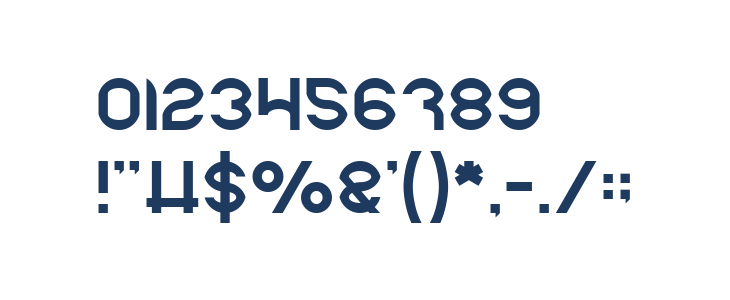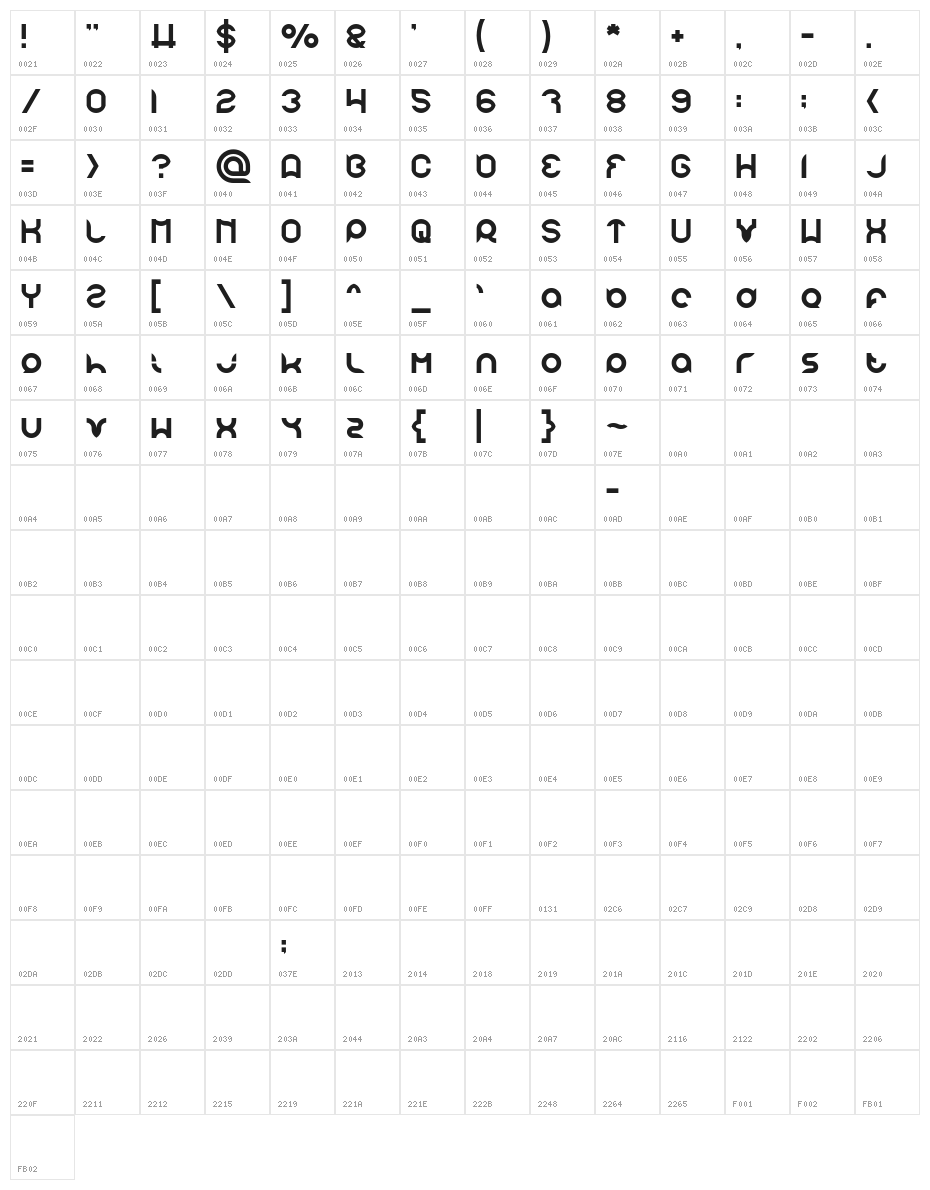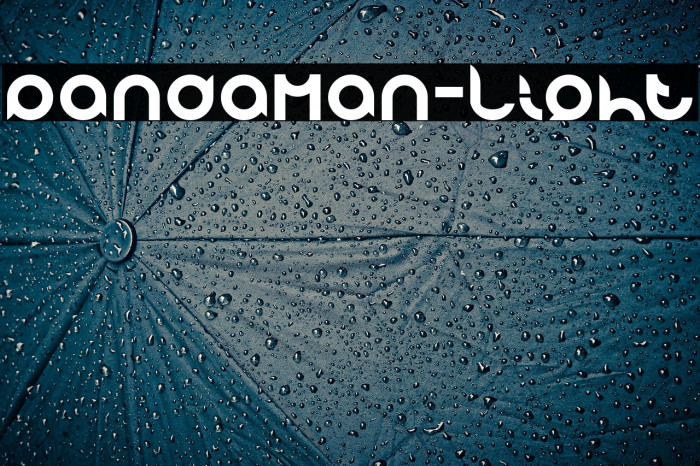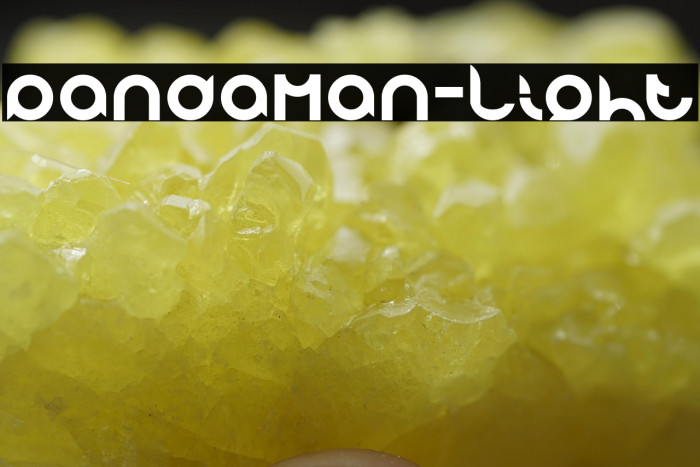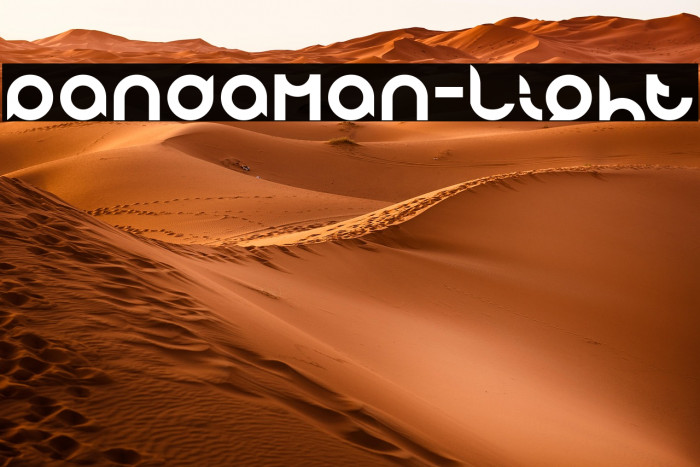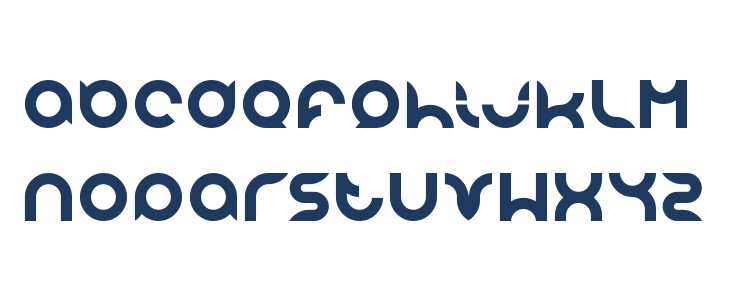
pandaman-Light Font
pandaman-Light Description
This font features a bold and geometric design with a futuristic flair. The characters are constructed with a combination of straight lines and curves, creating a unique and modern appearance. The uppercase letters have a consistent height, while the lowercase letters maintain a similar style with slightly more rounded edges. Numbers and special characters follow the same design principles, ensuring uniformity across all glyphs. The font's distinct style makes it stand out, with each character having a strong presence and clear readability.
PANDAMAN-LIGHT UPPERCASE
PANDAMAN-LIGHT LOWERCASE
PANDAMAN-LIGHT OTHER CHARS
| Overall Style | Futuristic, Modern |
| Proposed Projects | Ideal for technology branding, sci-fi themed projects, modern posters, and digital interfaces. |